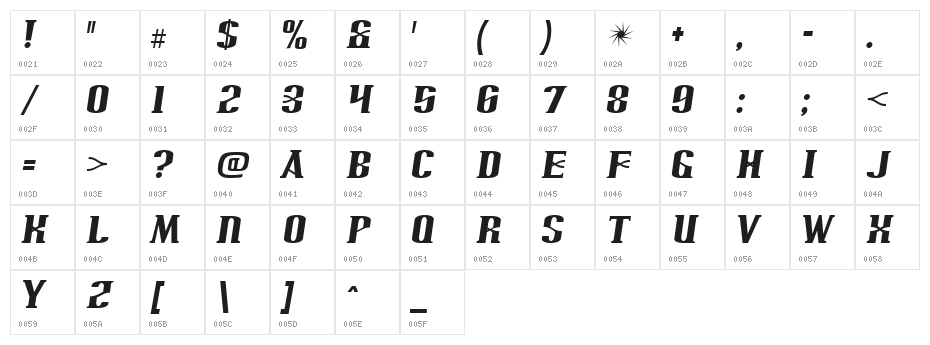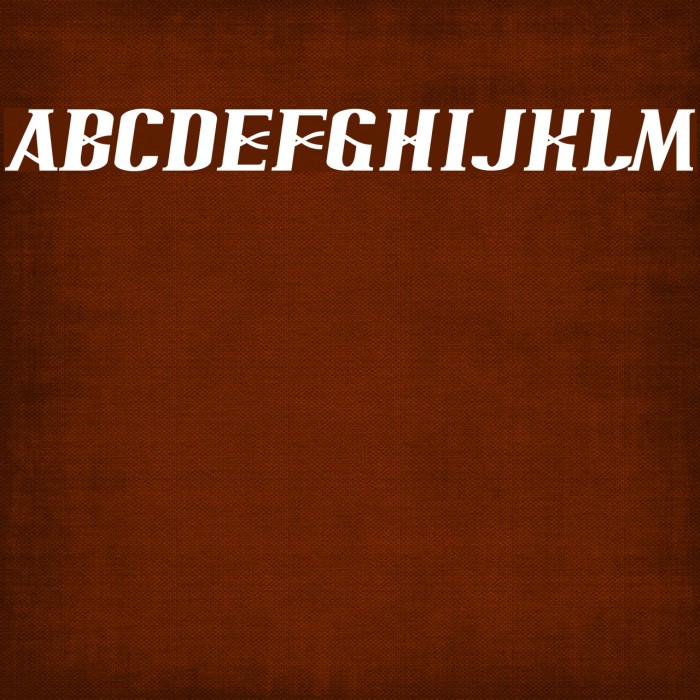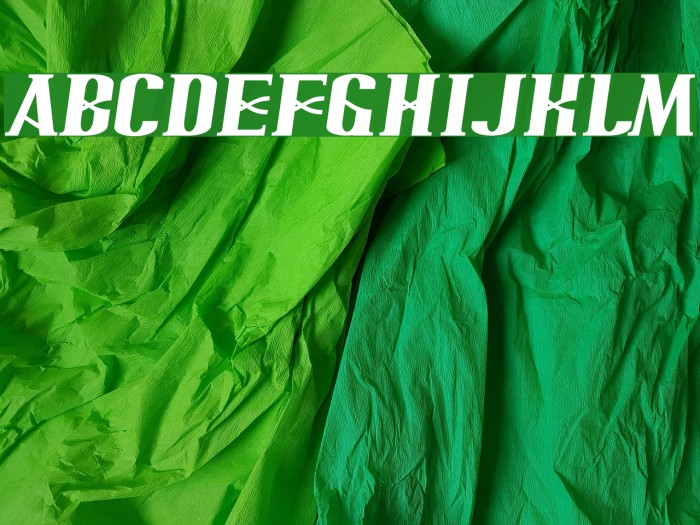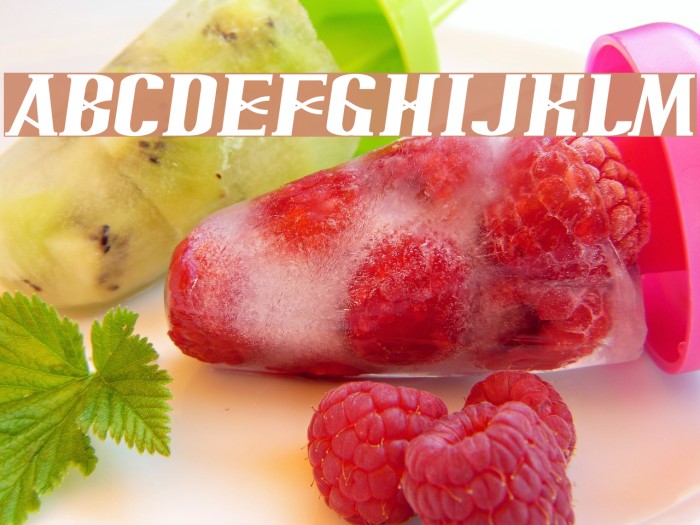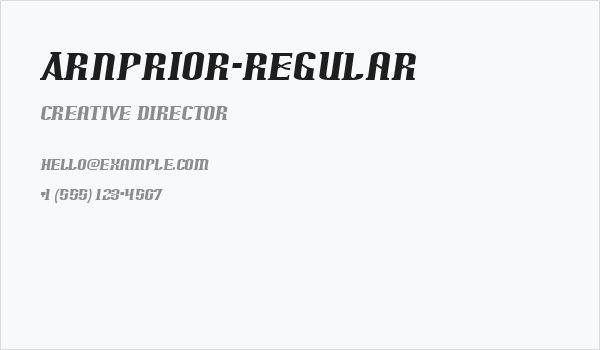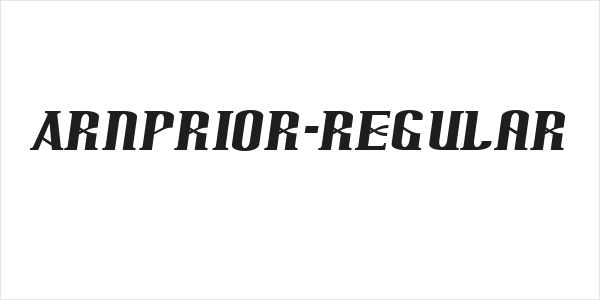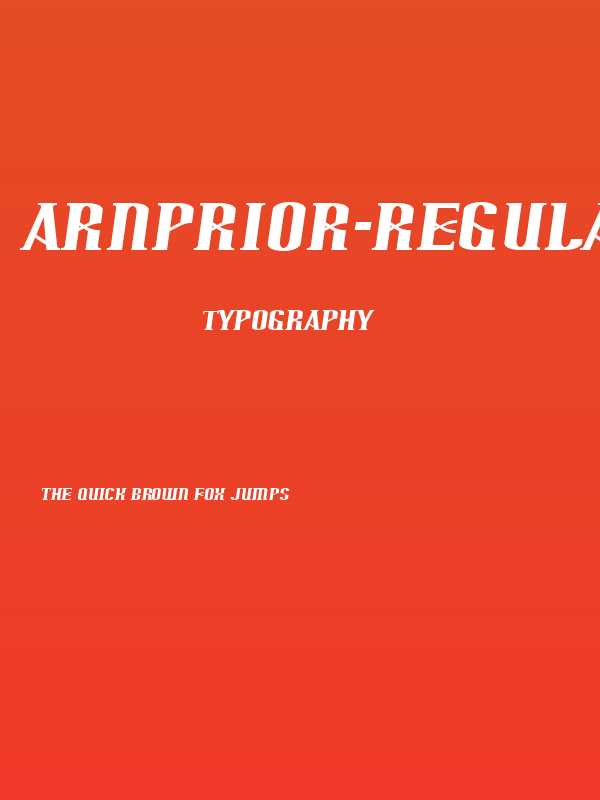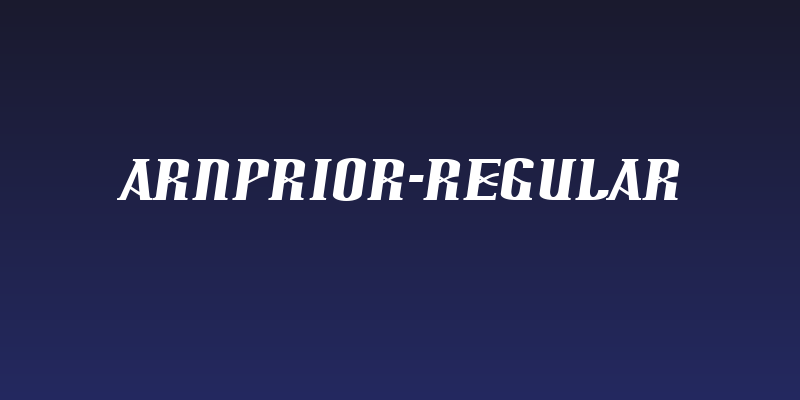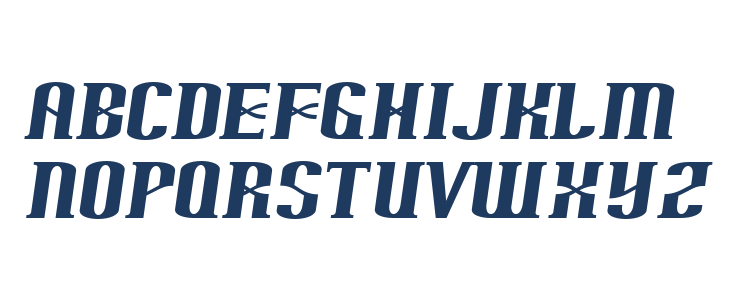
Arnprior-Regular Font
Arnprior-Regular Description
This font exhibits a bold and dynamic style with a distinct slant, giving it a sense of motion and energy. The characters are sharply defined with angular cuts and unique serifs that add a touch of elegance. The uppercase letters are particularly striking, with a strong presence that commands attention. The lowercase letters maintain the same boldness, ensuring consistency across text. Numbers are equally bold, making them stand out clearly. Special characters are designed with the same attention to detail, ensuring they integrate seamlessly with the rest of the font. Overall, this font combines traditional serif elements with a modern twist, making it versatile for various design needs.
| Proposed Projects | Ideal for branding, poster design, and headlines that require a strong visual impact. |